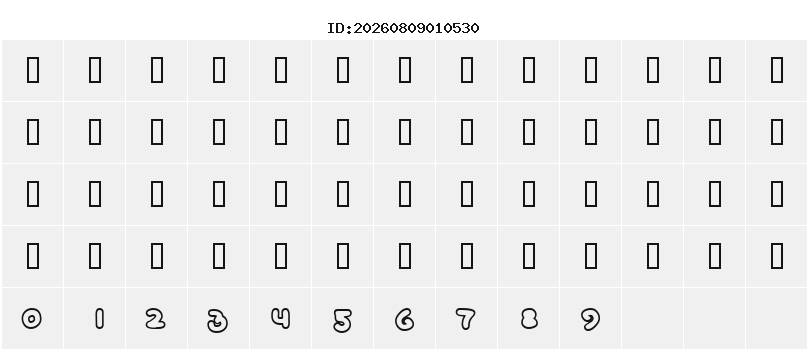
PingPong Outline Preview
• Font Name: PingPong Outline
• Full Font Name: PingPong Outline
About PingPong Outline.ttf
PingPong Outline.ttf is a modern, elegant sans-serif font designed for ultimate readability and visual harmony. Perfect for branding, headlines, web design, and print materials.